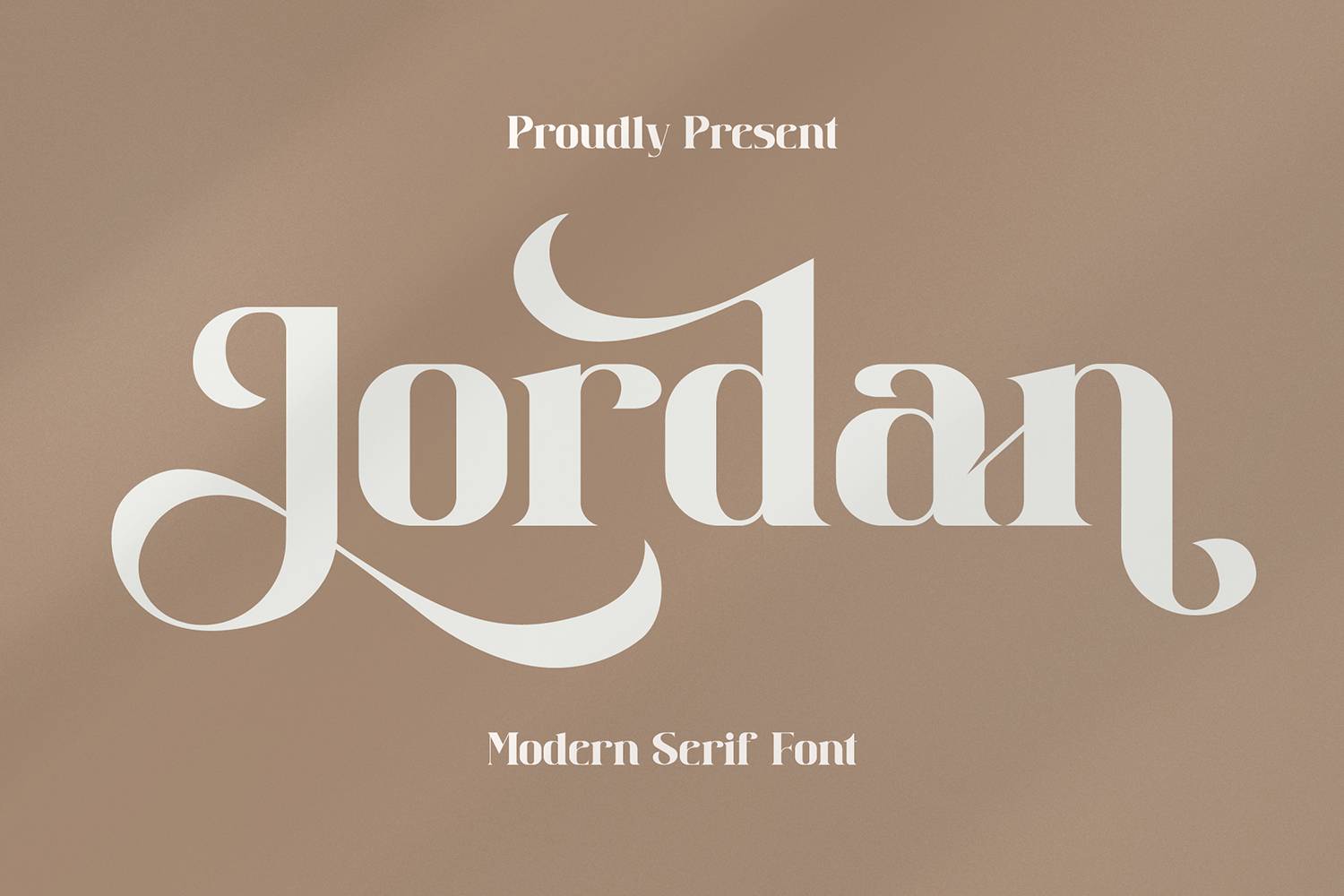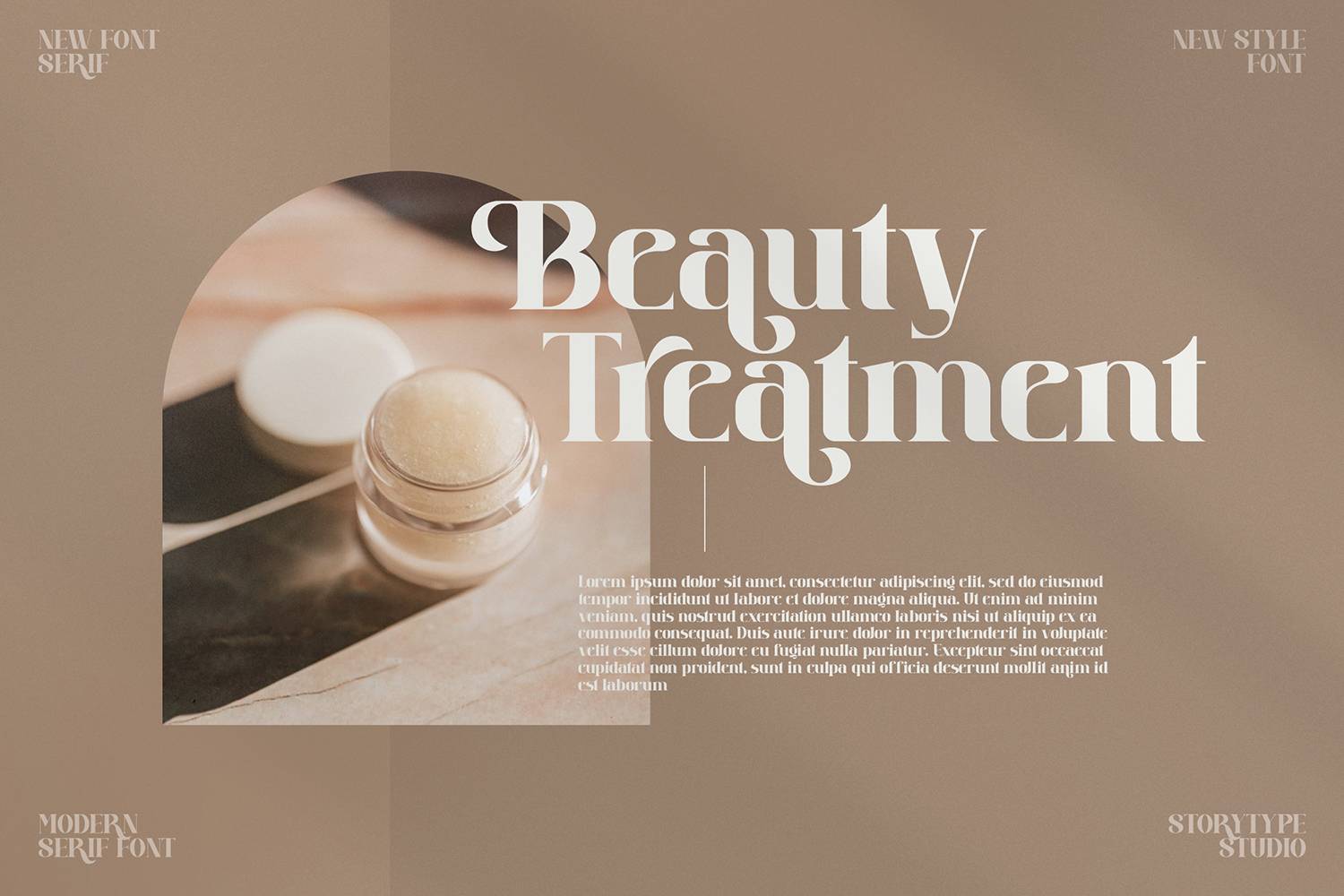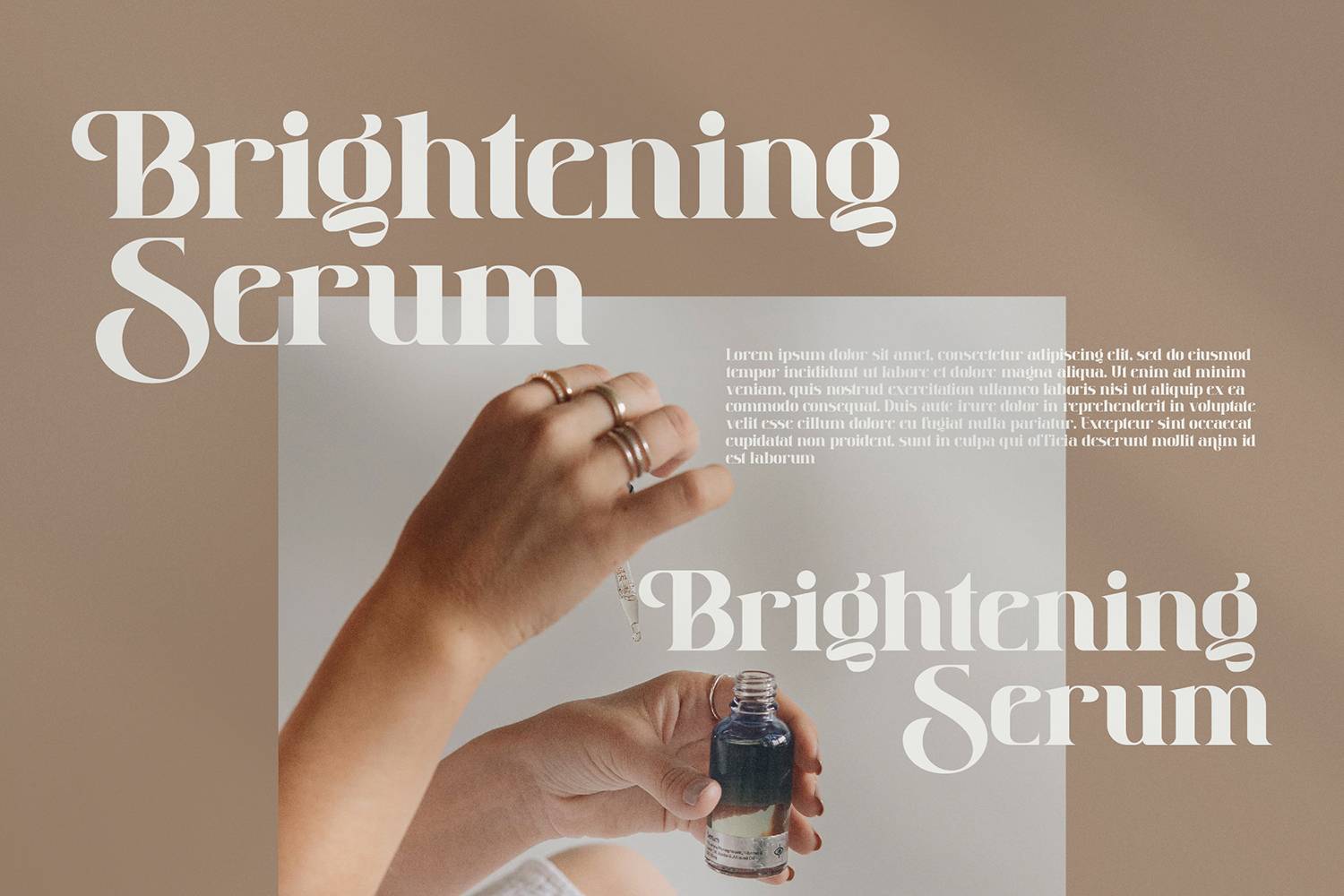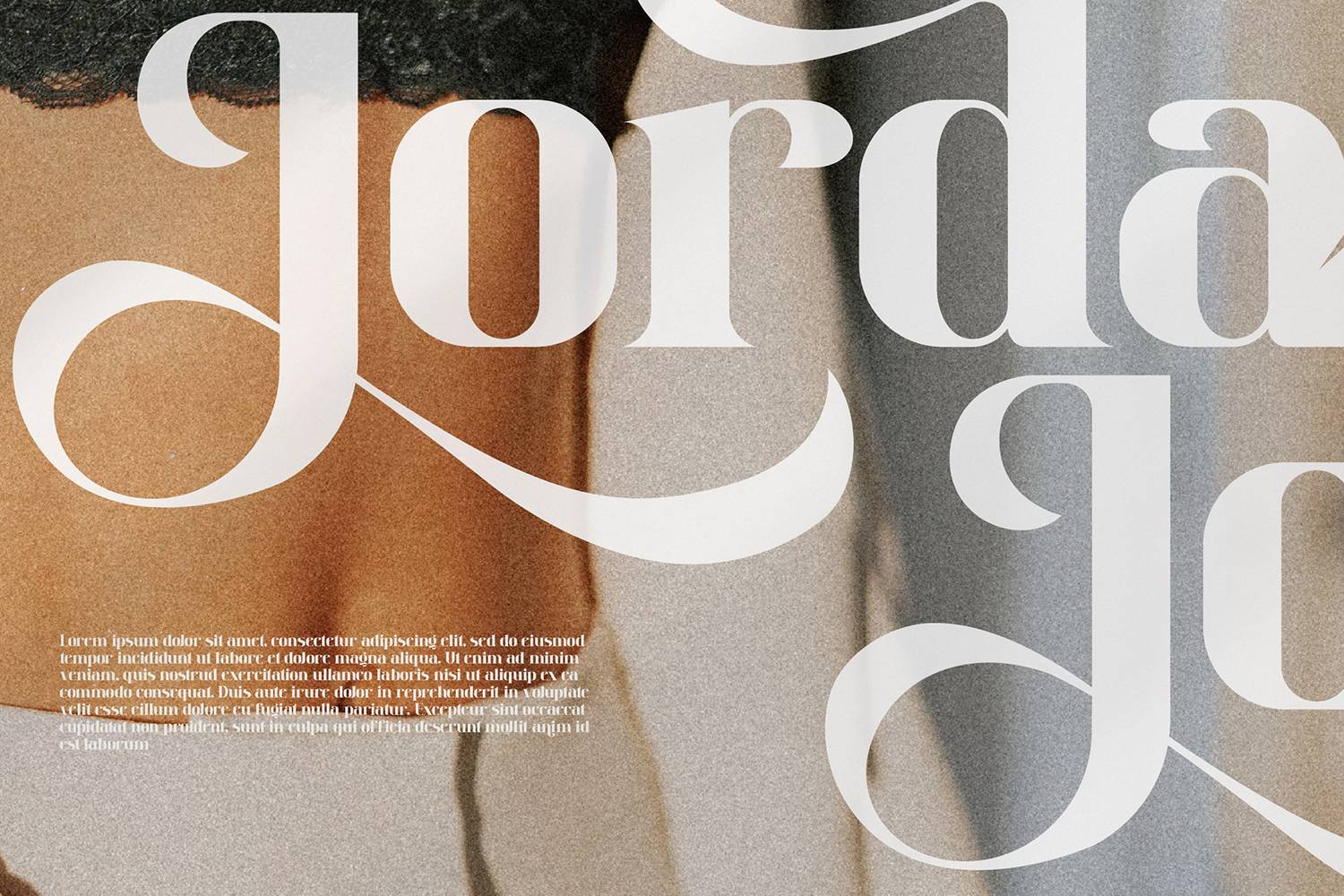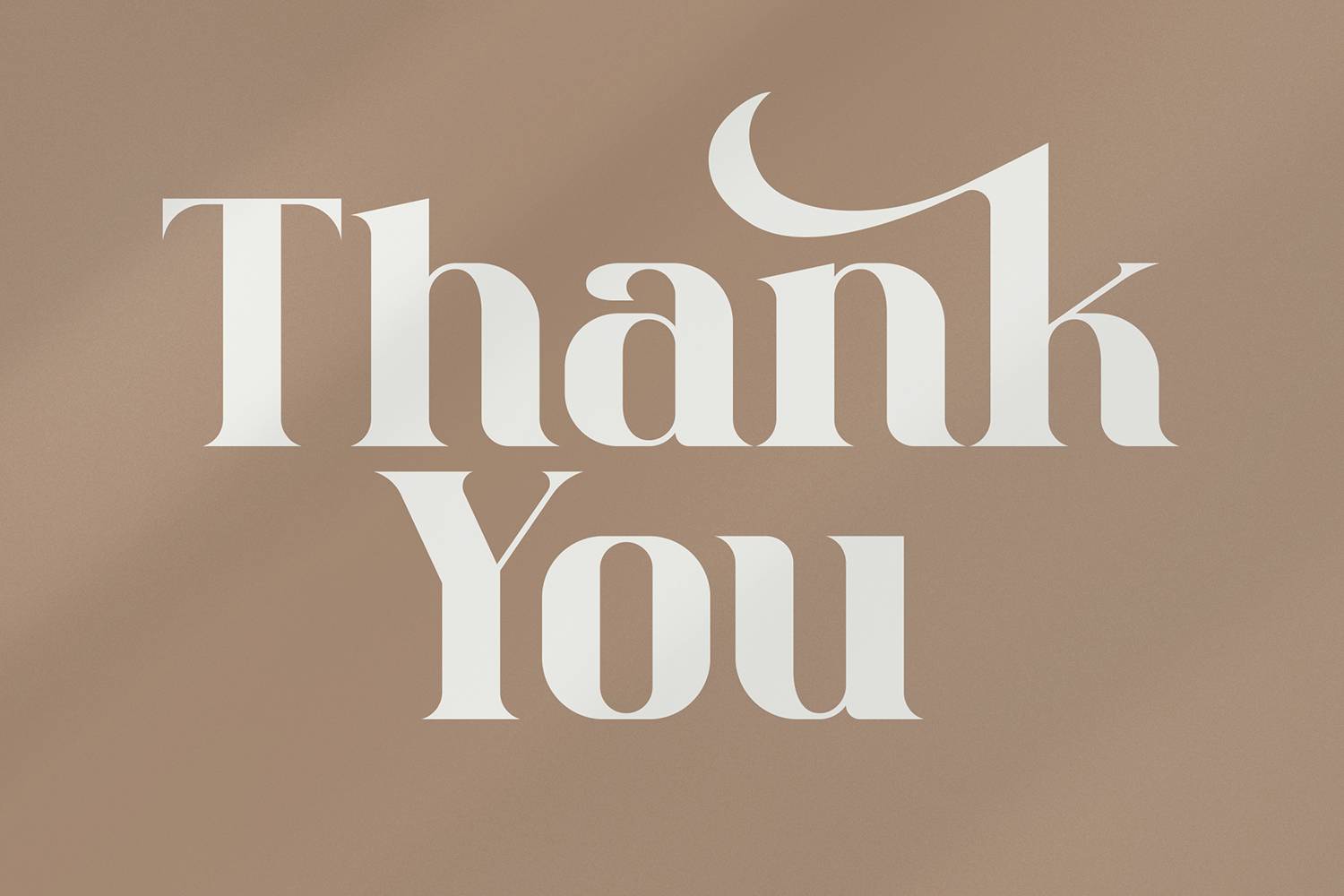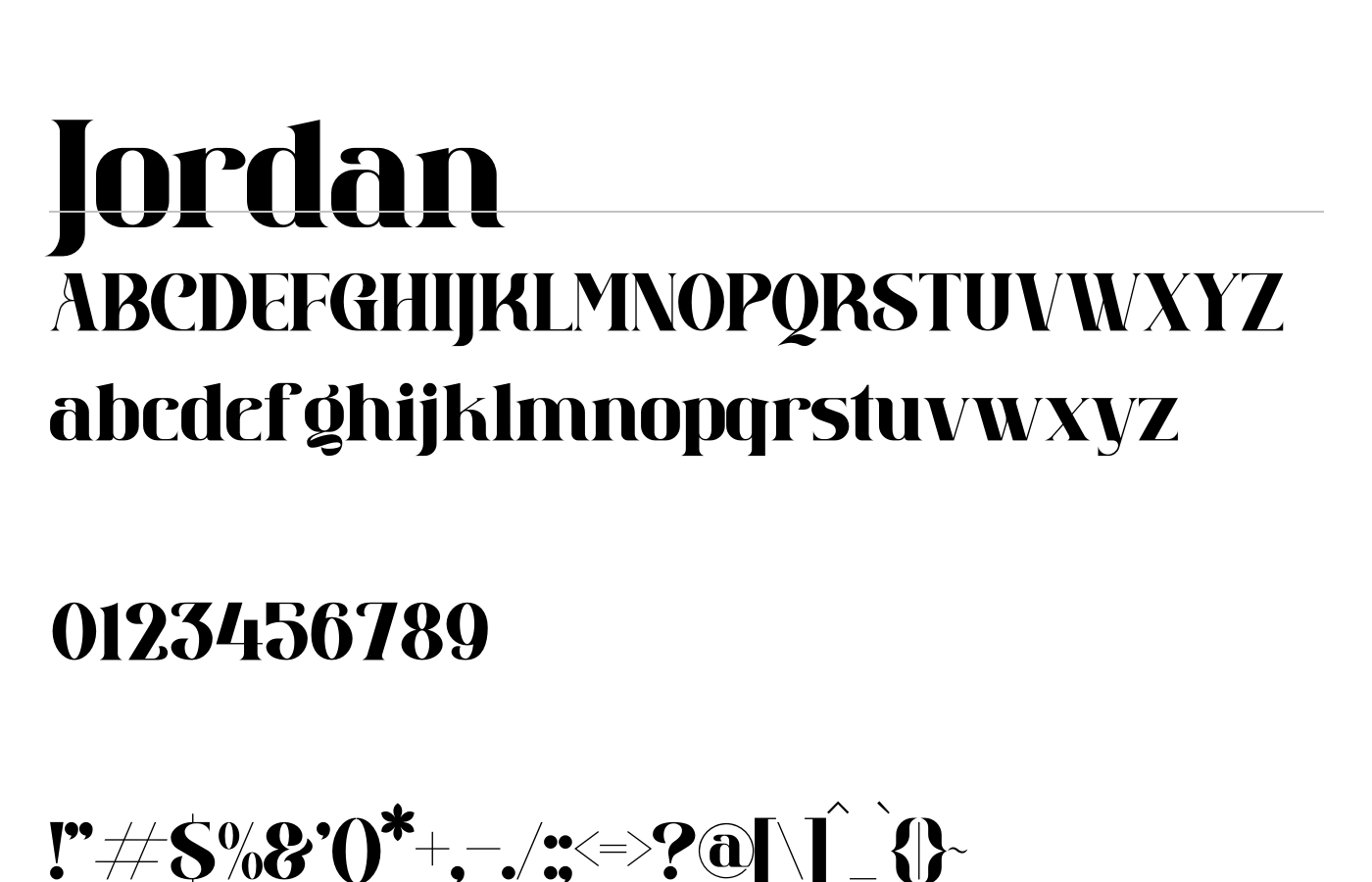
Jordan is a bold serif font with a strong vertical emphasis, featuring high contrast between thick and thin strokes and stylish, slightly curved serifs that give it a sophisticated yet modern feel. Its distinctive letterforms, including a double-story lowercase 'g' and unique details on characters like 'Q' and 'R,' make it ideal for eye-catching headlines, logos, and editorial designs where a blend of elegance and boldness is desired. This font works best in branding and display contexts that want to communicate confidence and refinement with a contemporary twist.
Jordan Font
About Jordan Font